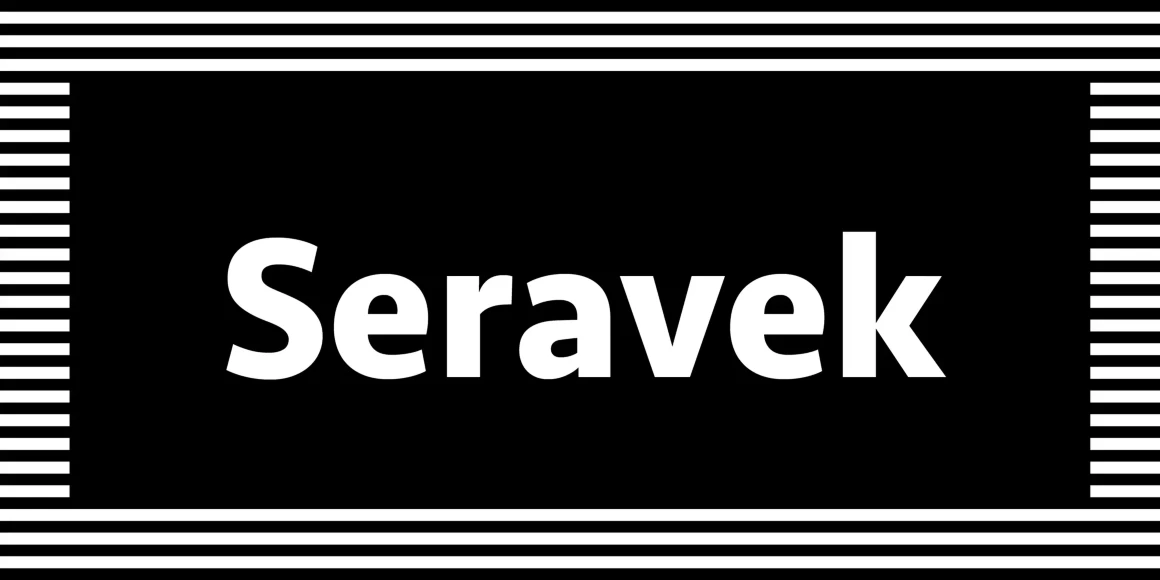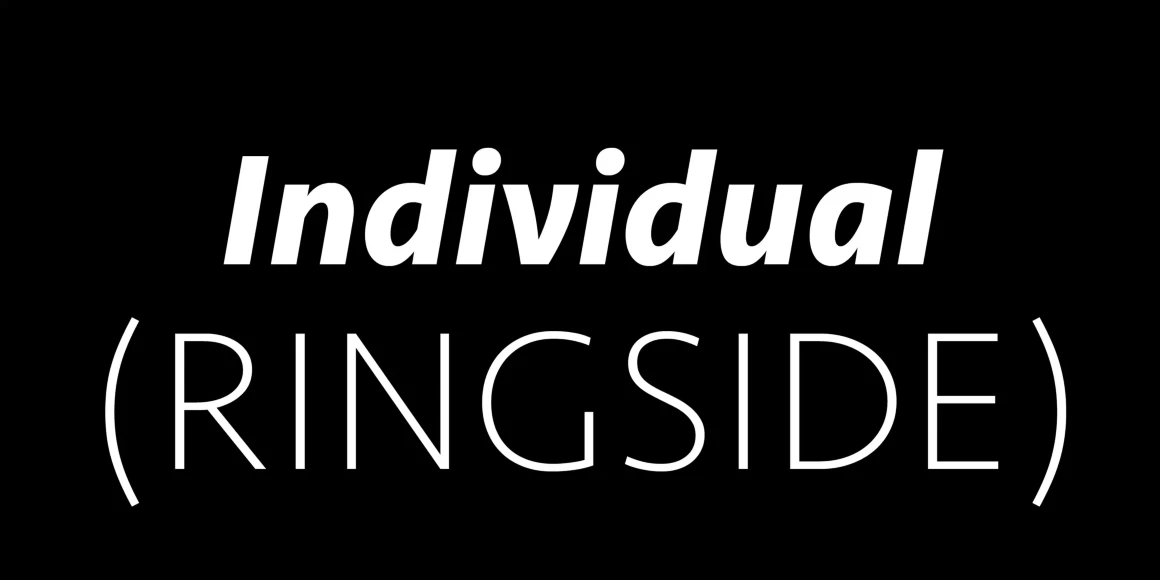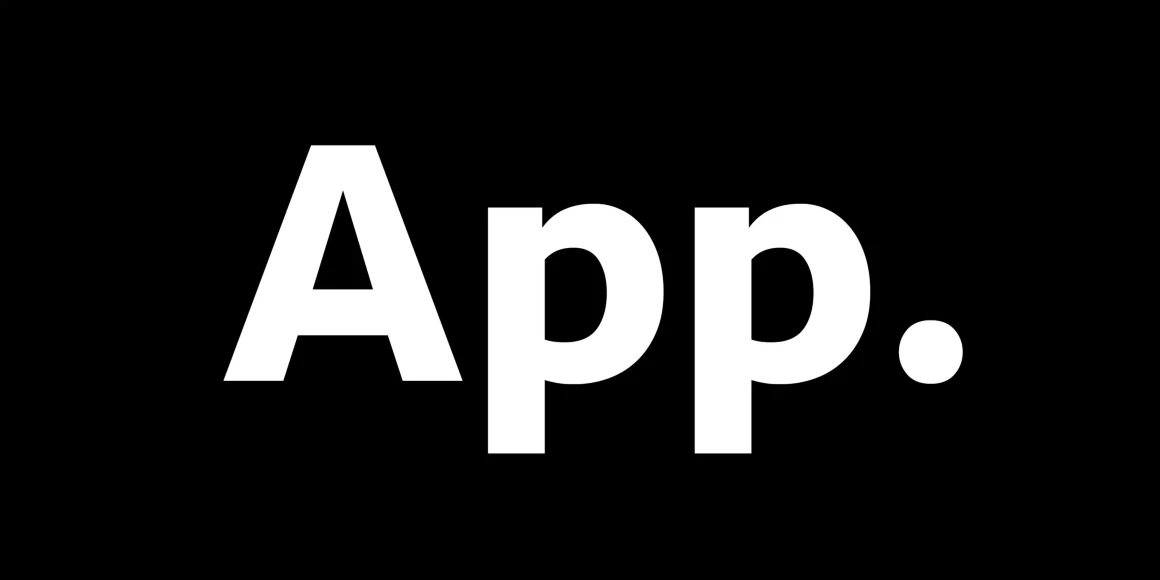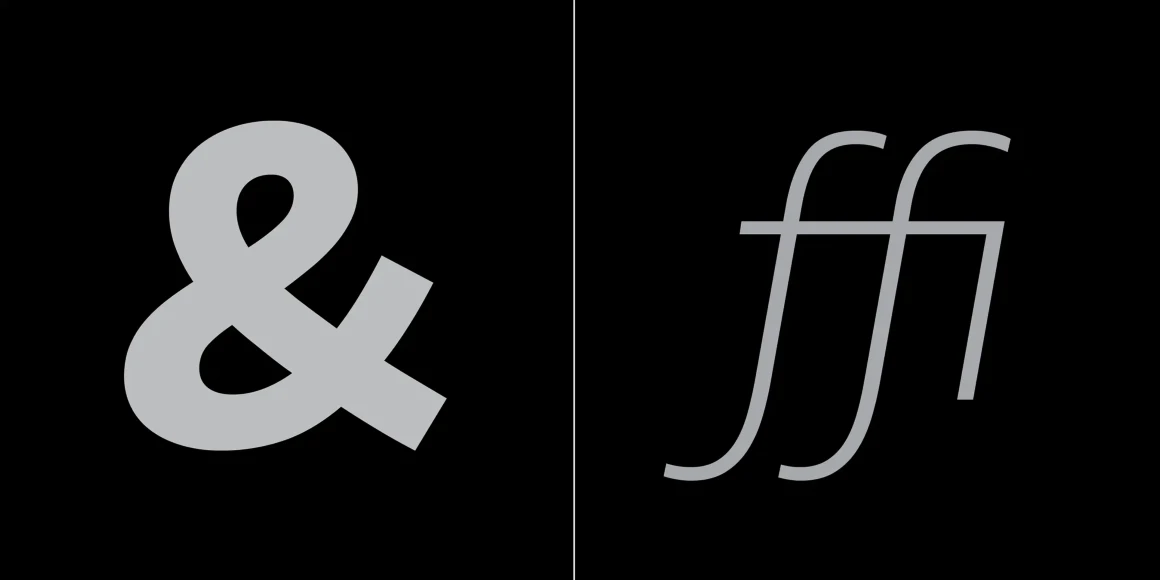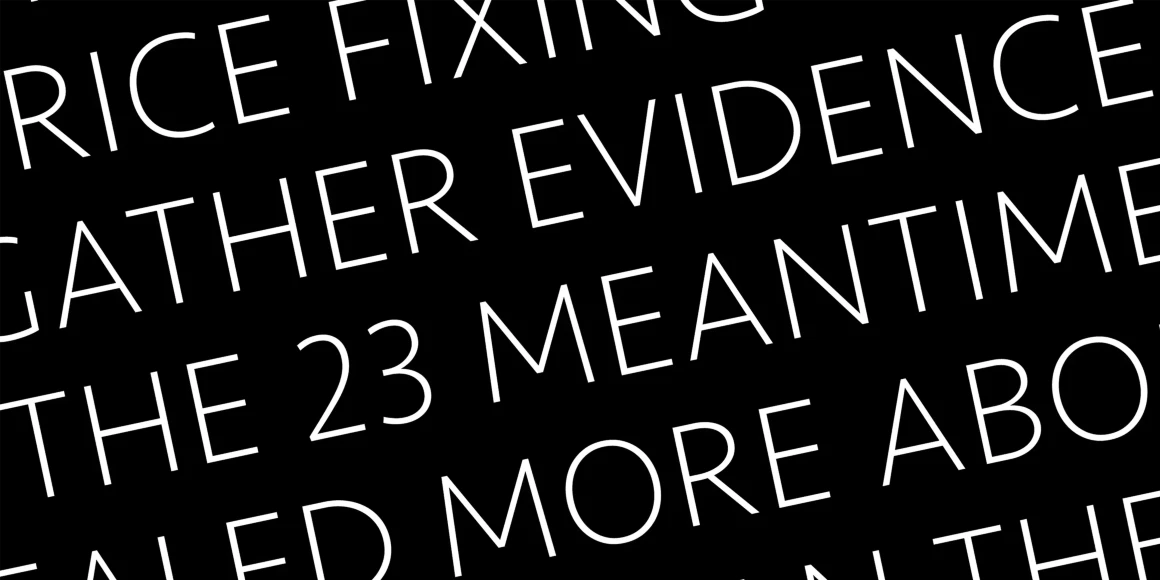
Seravek
From Process Type Foundry
Seravek is highly functional with a tone that’s felt most once-removed. It’s tailored to the demanding needs of information, editorial, and identity design where the twin forces of richness and clarity must co-exist. The resulting letters are unobtrusive, refined and imbued with a sense of forward modernity – essential for a diverse range of work in today’s environment. A full range of OpenType features include smalls caps, case-sensitive glyphs, old style & tabular numerals, fractions, superiors & inferiors, and stylistic alternates.
Designed by Eric Olson